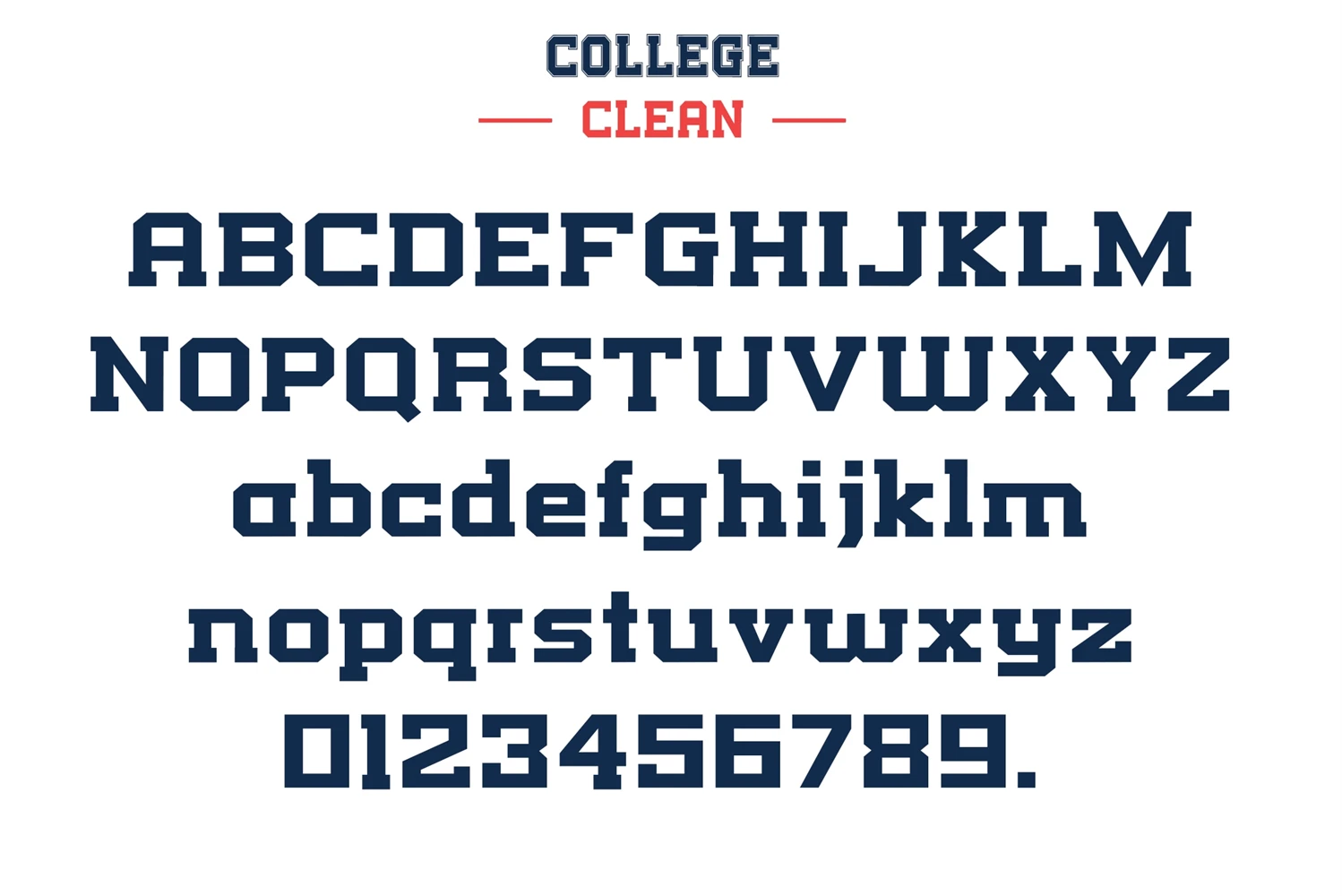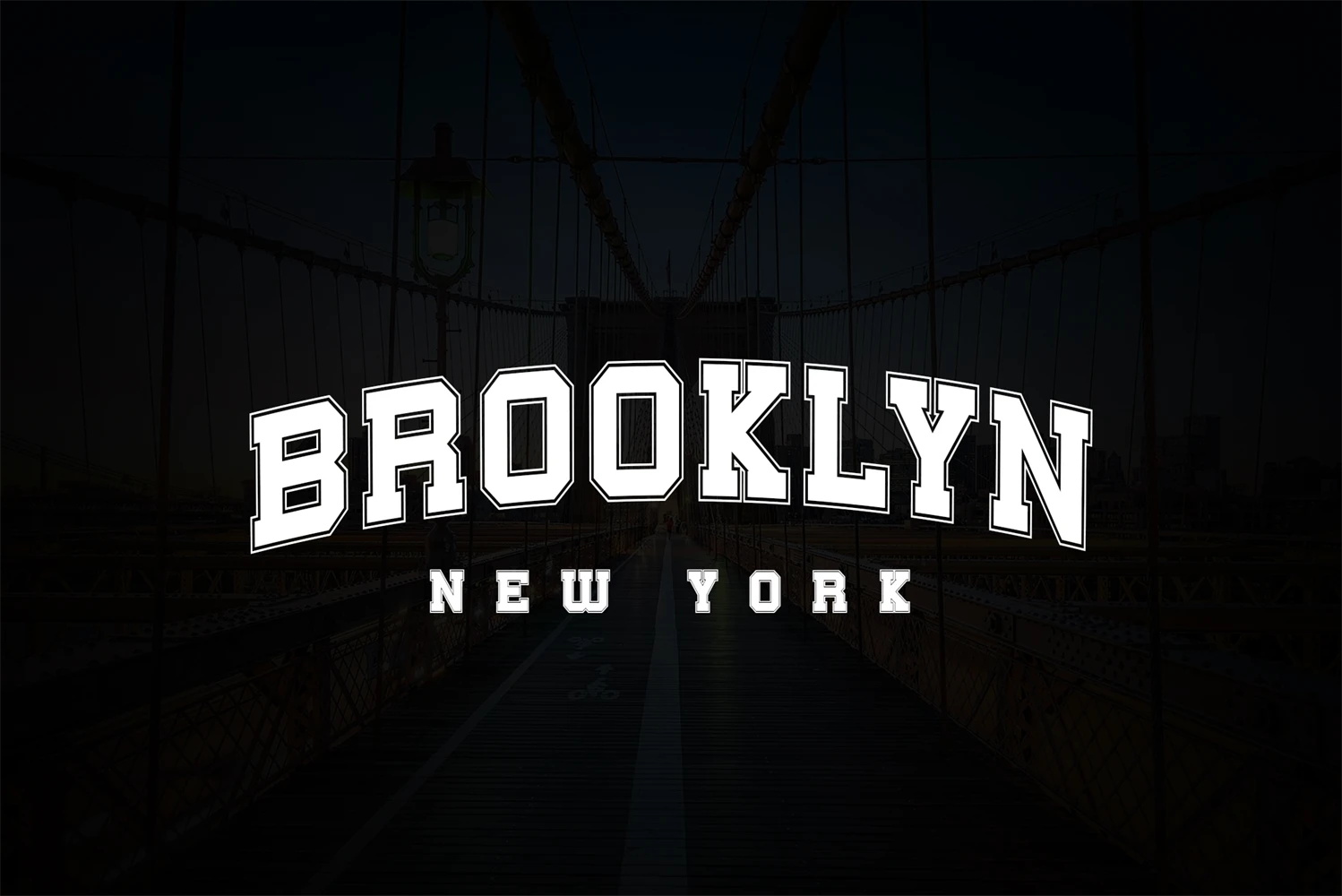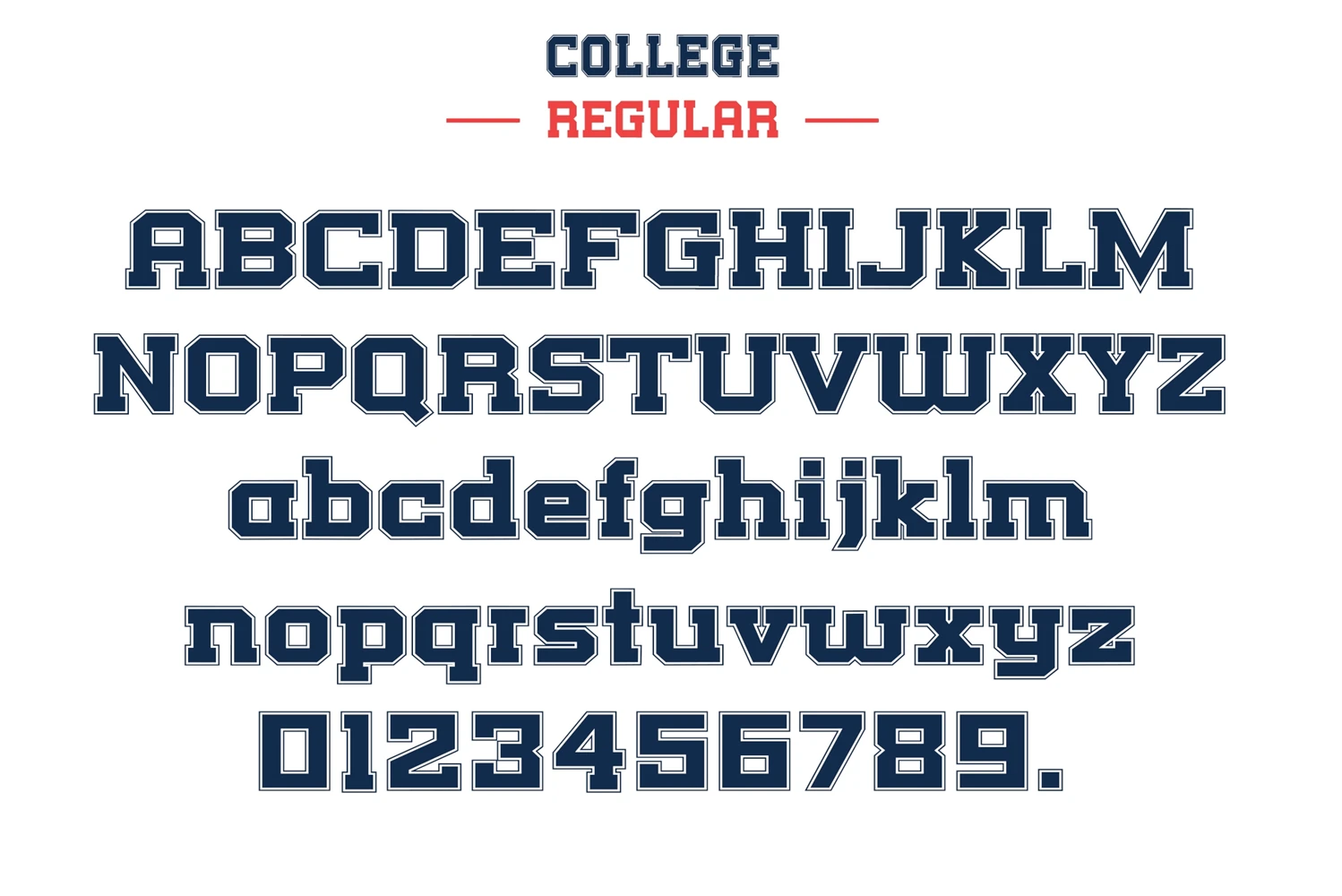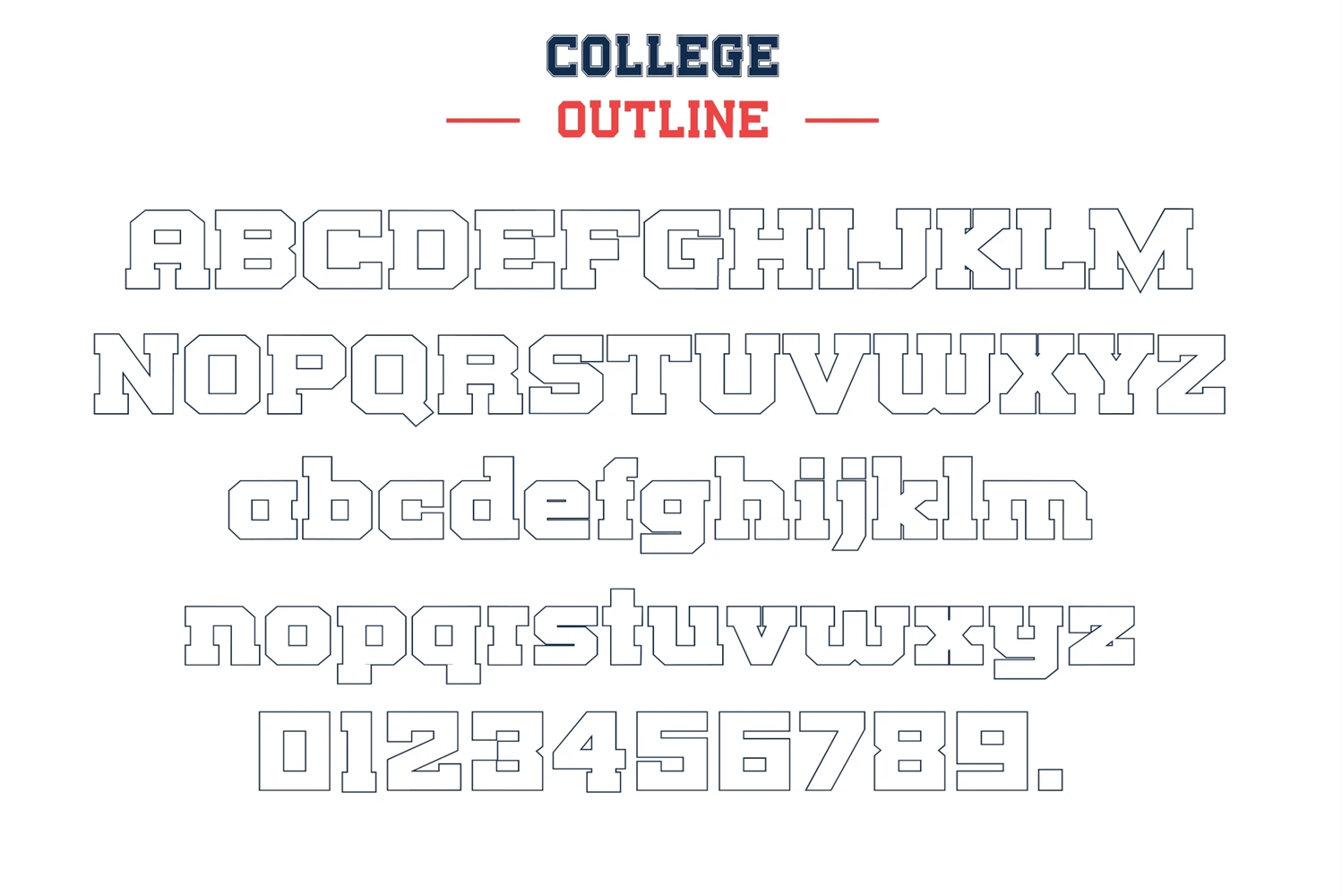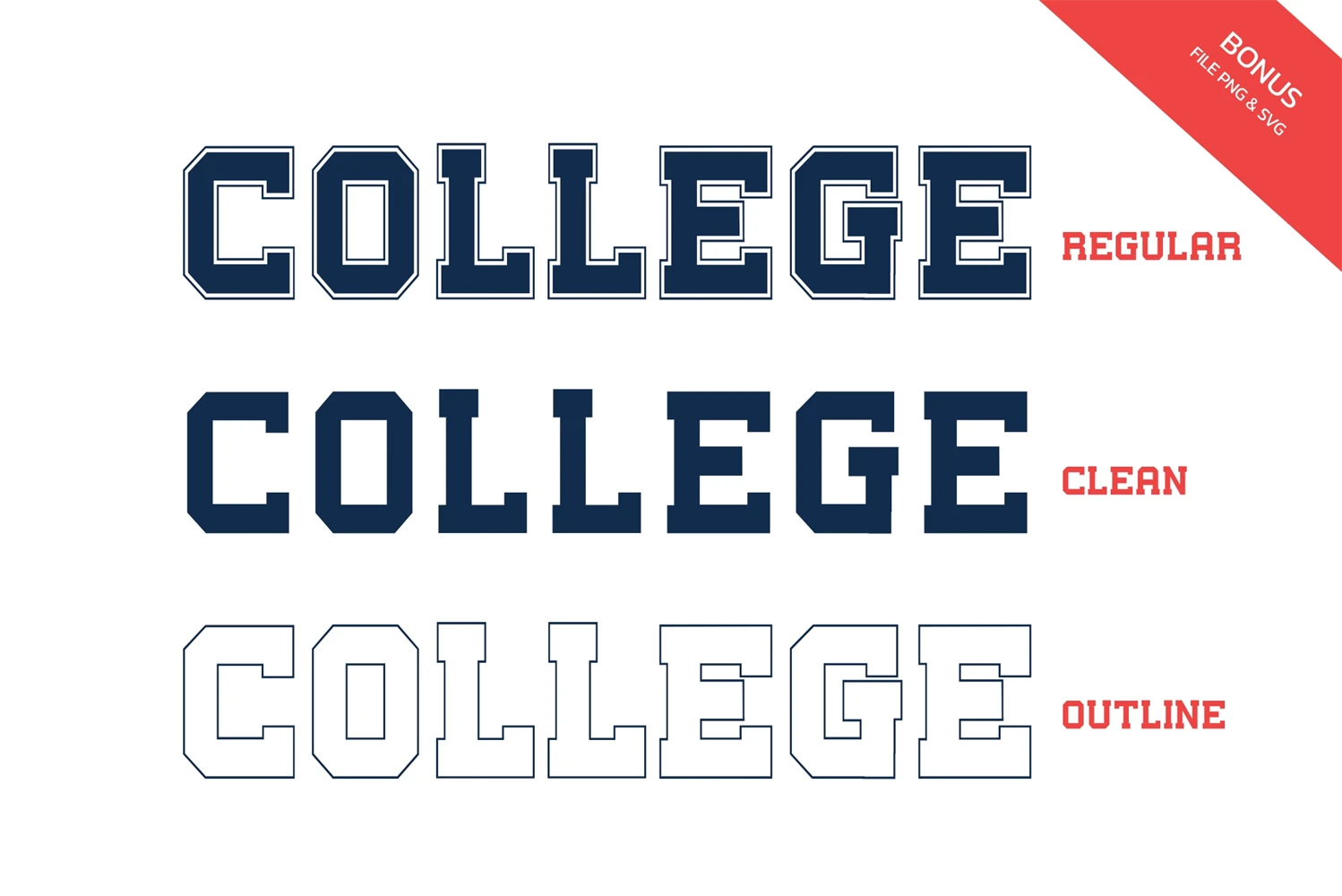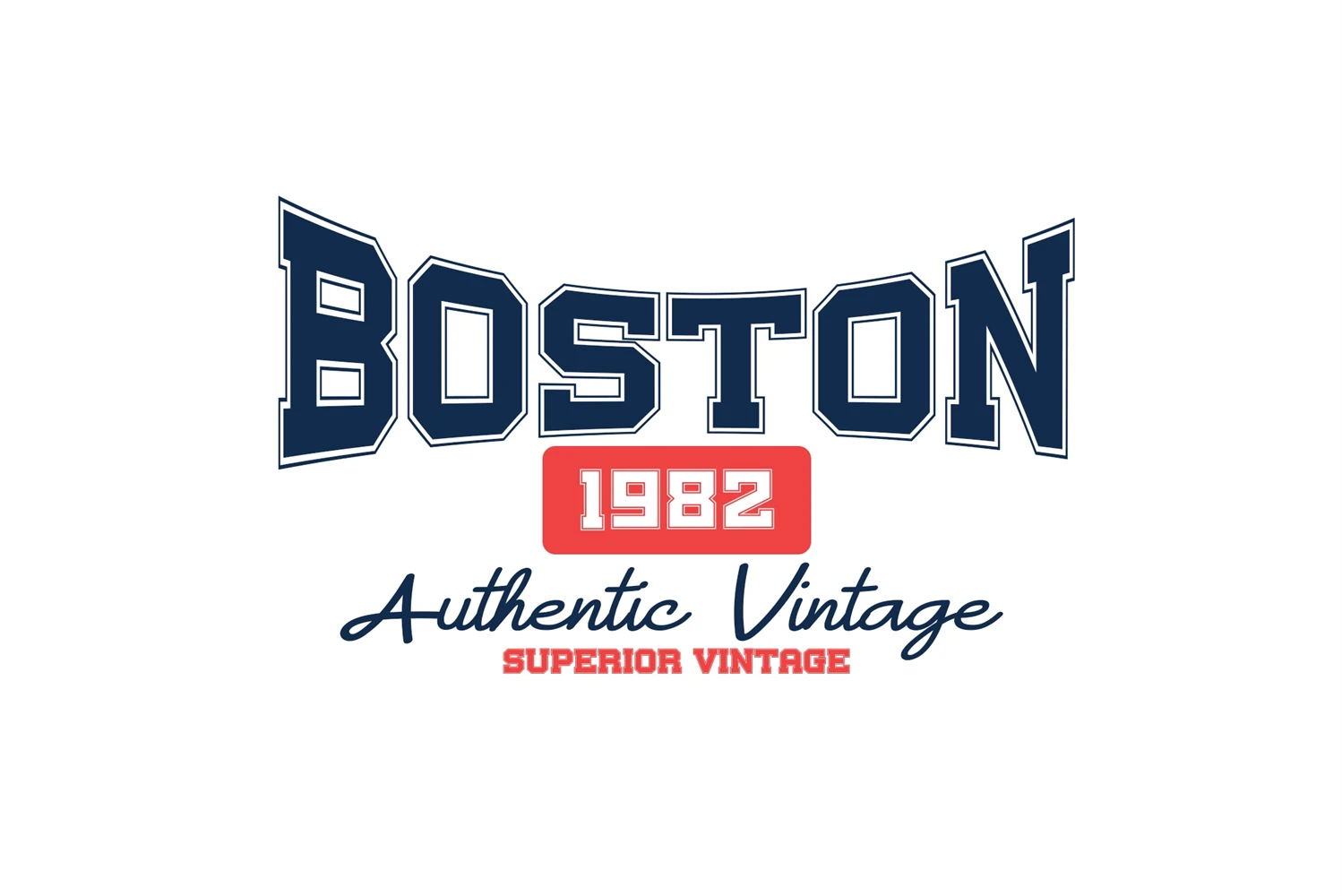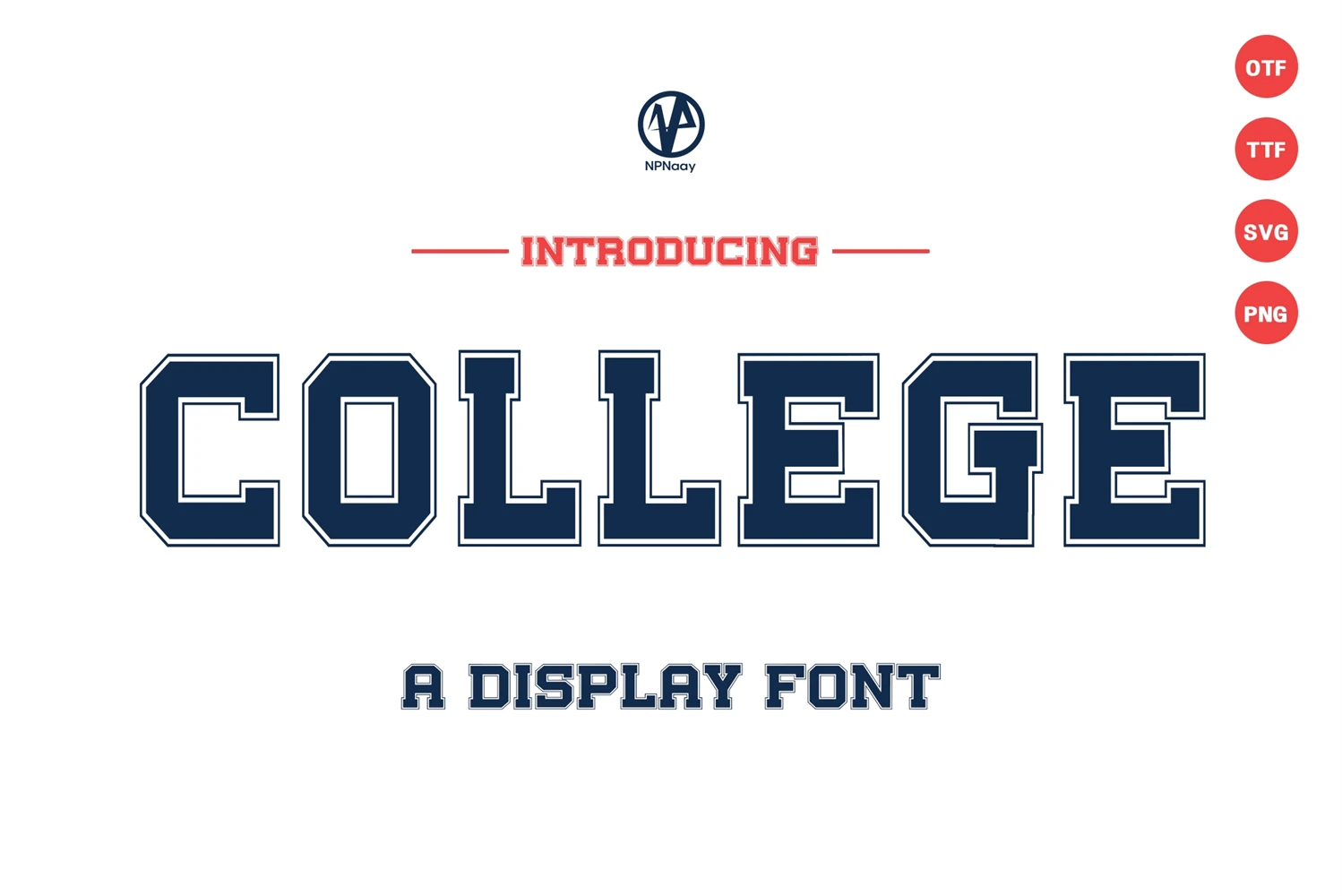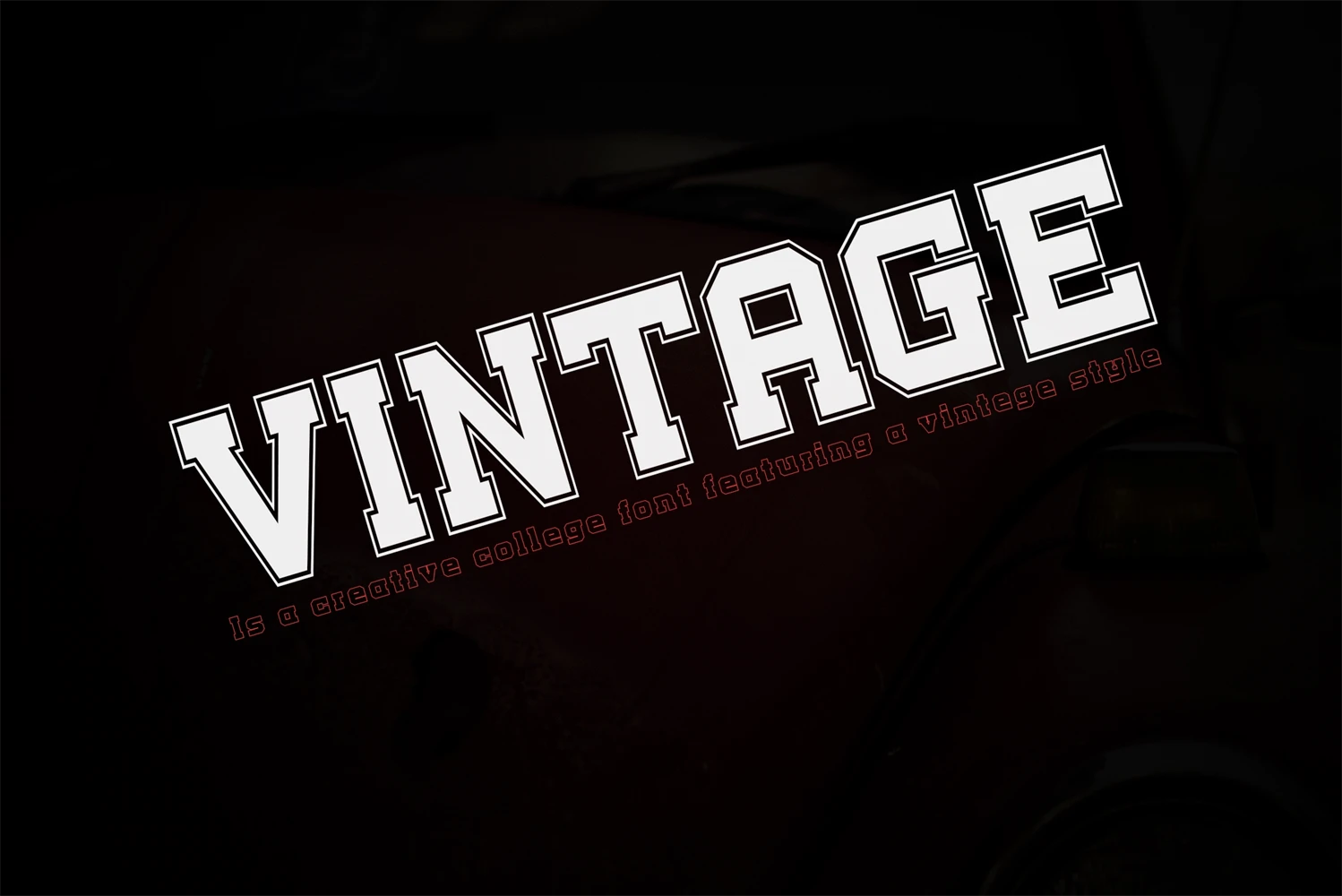
College is a creative college font featuring a vintege-style display with only angled lines and stubby serifs. It incorporates redesigned European accents and even includes Cyrillic accents, making it a versatile asset for numerous European languages. Ideal for designing t-shirts, logos, or web graphics.